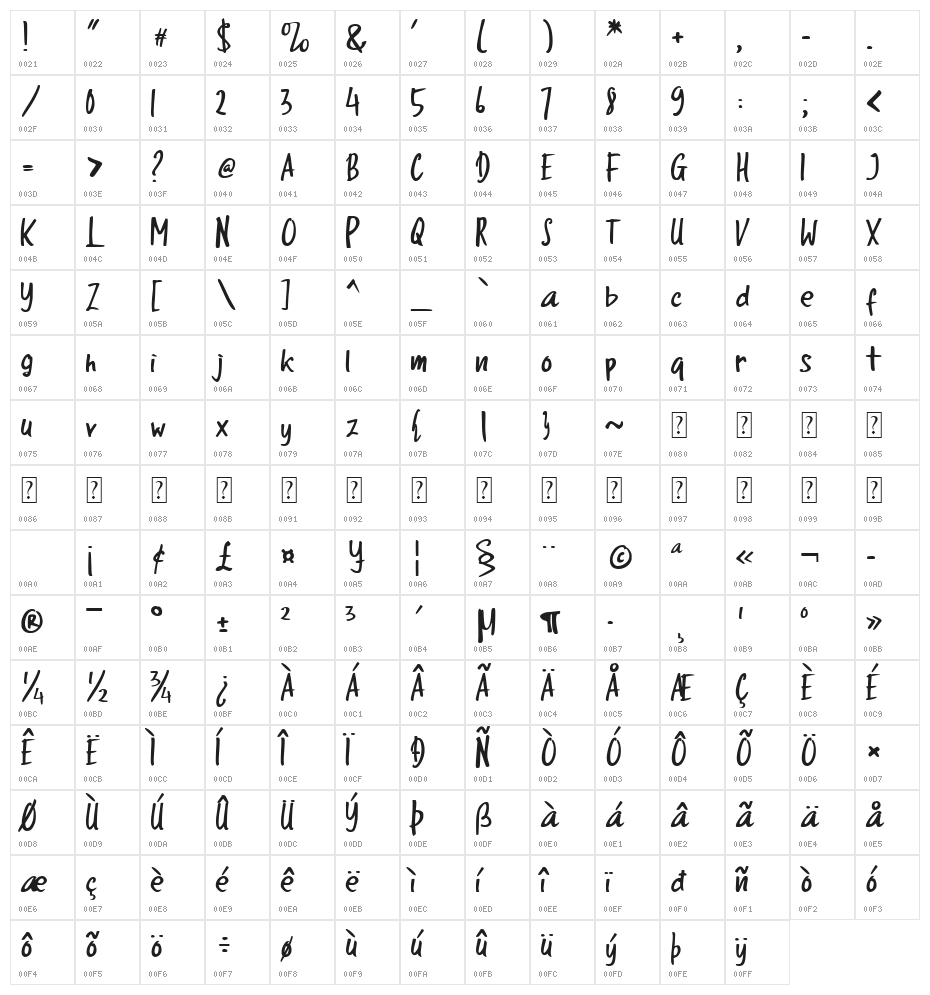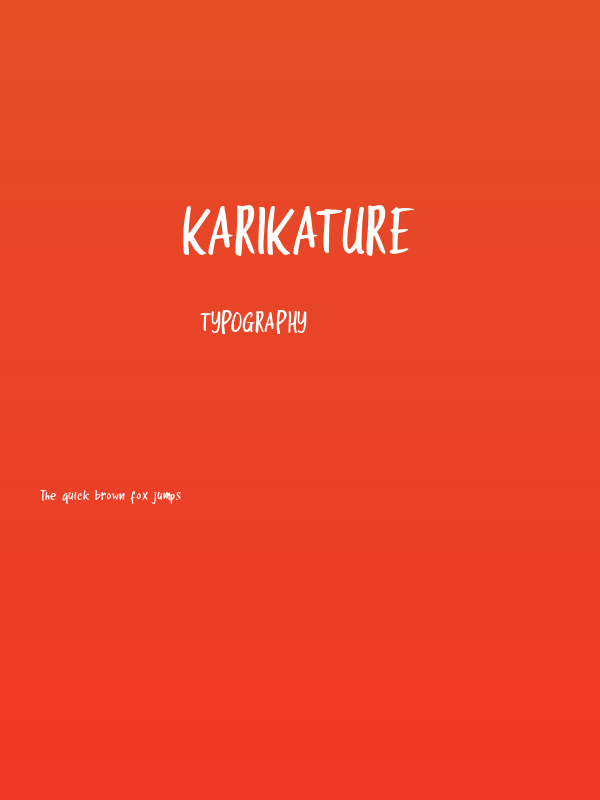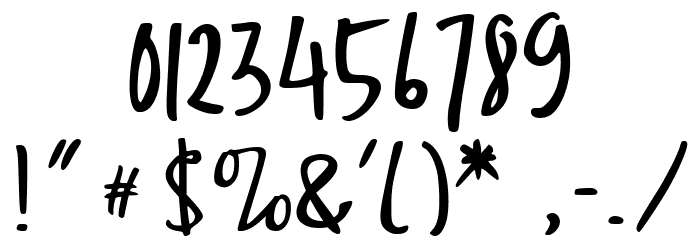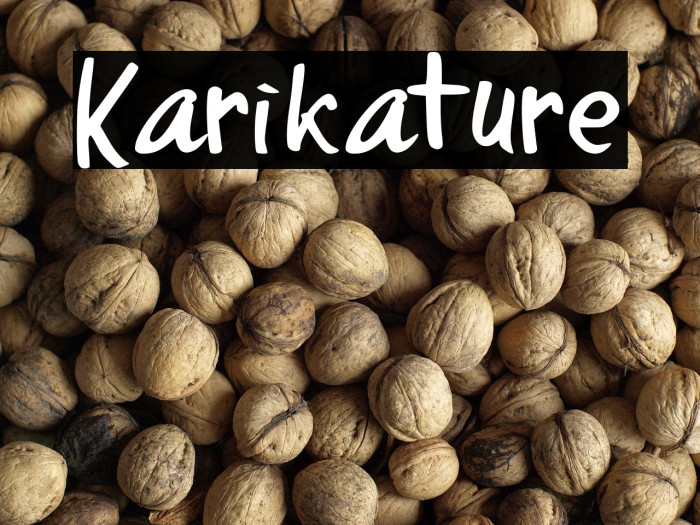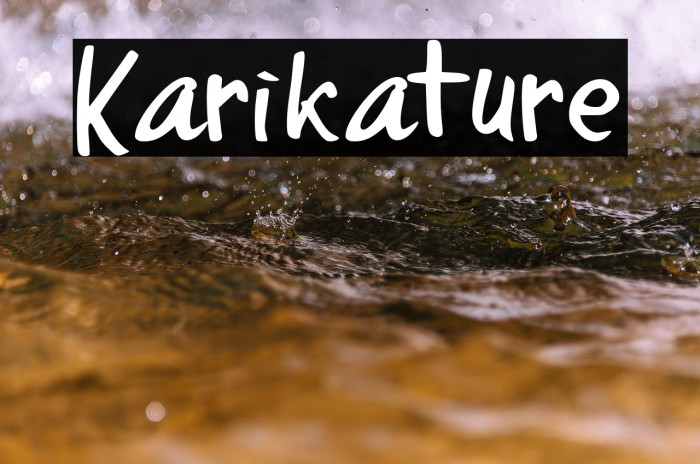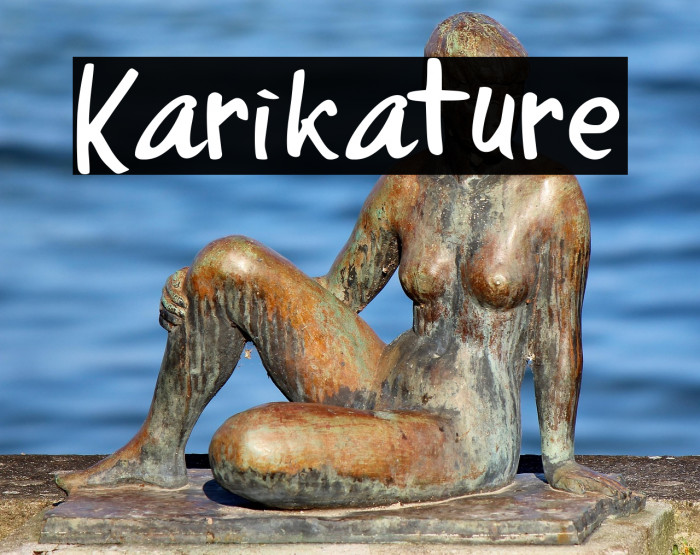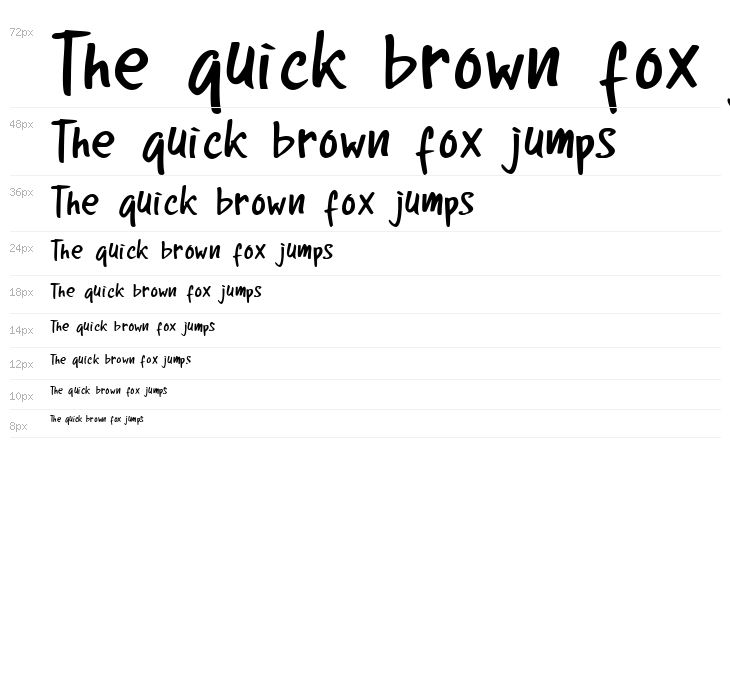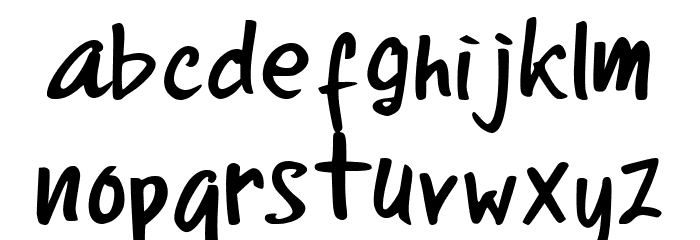
Karikature Font
Karikature Description
This playful and energetic font features a hand-drawn style with a whimsical touch. The characters are bold and slightly irregular, giving them a lively and dynamic appearance. The uppercase letters are tall and commanding, while the lowercase letters maintain a consistent flow with a slightly rounded form. The numbers and special characters follow the same playful aesthetic, making them suitable for creative and informal designs. The overall style is reminiscent of casual handwriting, perfect for projects that require a personal and approachable feel.
| Overall Style | Playful, Casual |
| Proposed Projects | Ideal for children's books, greeting cards, playful branding, and social media graphics. |